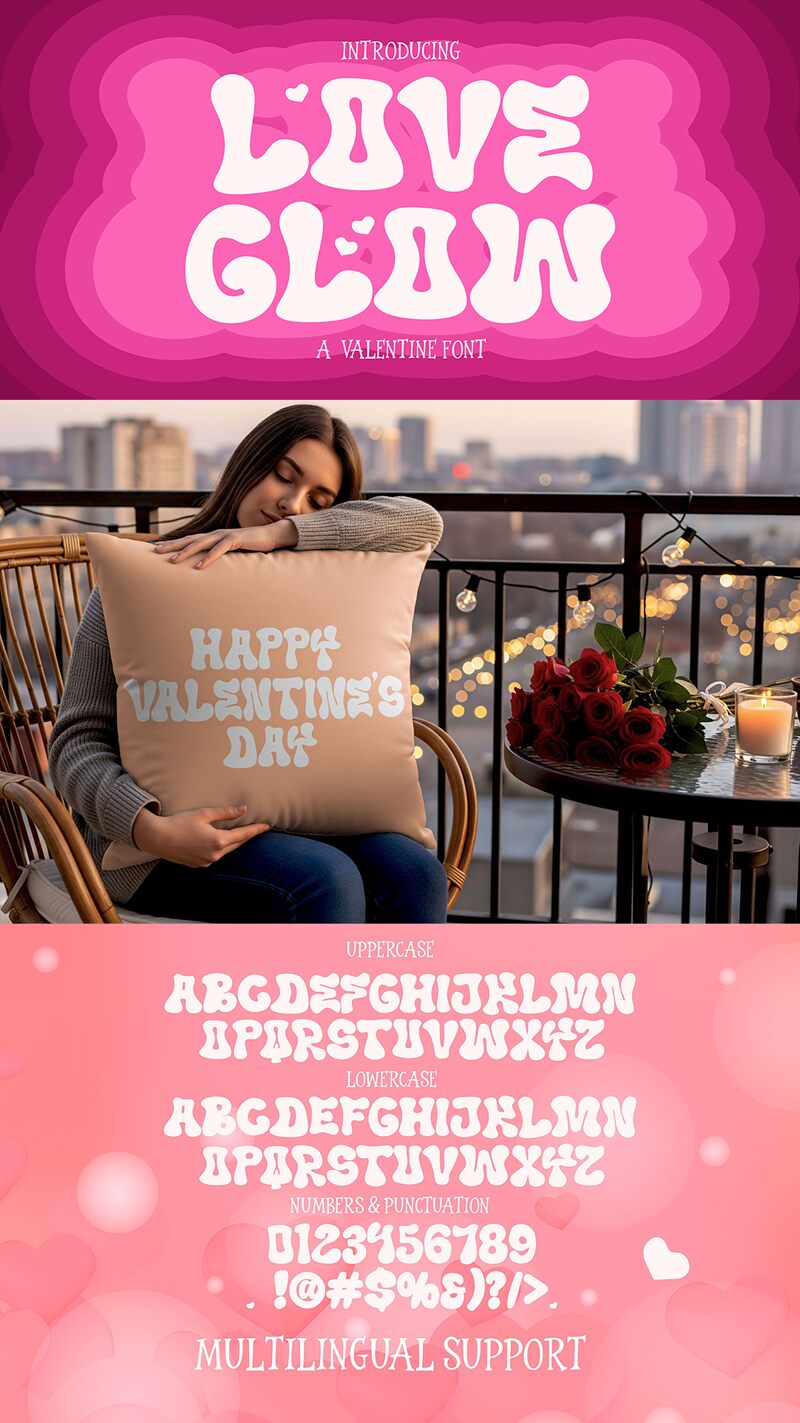
Love Glow font by Cikareotype Studio is a groovy and whimsical font inspired by 60’s and 70s vibes. It is rounded and fun with a soft contemporary feel. It has a youthful and energetic appearance. With its fluidity and flowing letter shapes, this is a font that will help you to instantly create expressive and vibrant typography with a casual feel. This is a free font for personal projects.
Use this playful typeface for your coffee shop logo, book cover projects for a children’s book, or any other book for a younger target. Poster design, badges design, and labels are some other options. Wrap your invitations and social media posts with a subtle creative atmosphere by selecting this font as your main type.